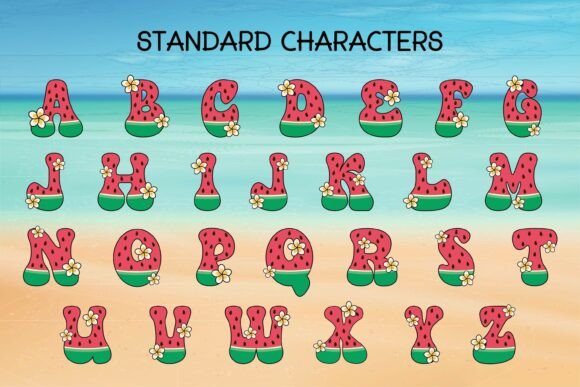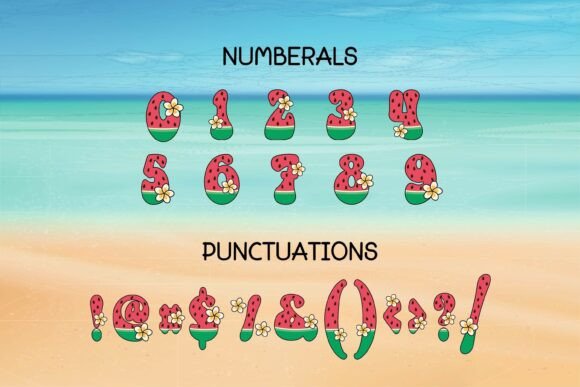
Adding a Taste of Summer to Your Designs
Who hasn’t felt the urge to escape to a tropical paradise on a hot summer day? As you scroll through your social media feeds, you stumble upon a colorful post that instantly transports you to a Hawaiian beach. The vibrant hues and playful typography make you smile, and you can’t help but wonder how you can create a similar effect in your designs.
Introducing the Aloha Melon Font, a charming display font that captures the essence of a refreshing summer day. This adorable font is inspired by juicy watermelon, beach vibes, and Hawaiian summer flowers, making it perfect for creating fun and cheerful designs. With its bright watermelon textures, cute floral decorations, and bold rounded letters, the Aloha Melon Font is a valuable addition to any designer’s toolkit.
Aloha Melon Font Key Features
- Font Family: Aloha Melon
- Unique Characteristics: A fun, playful, and colorful font with a tropical theme, featuring a mix of rounded and pointed shapes
Aloha Melon Font Review
I recently had the chance to work with the Aloha Melon Font, and I have to say it’s a fun and quirky addition to any design project. ✨ The font’s playful, handwritten feel is perfect for creating a relaxed and friendly atmosphere. It’s great for use in branding, advertising, and even social media graphics.
The Aloha Melon Font has a lot of potential, and I appreciate the designer’s attention to detail. The font includes a range of glyphs, including accented characters, punctuation, and even a few fun symbols. ✨ The font also comes in a few different styles, including a bold and a regular weight, which can be useful for creating visual interest.
- Playful, handwritten feel
- Perfect for creating a relaxed and friendly atmosphere
- Range of glyphs, including accented characters and punctuation
- Available in different styles, including bold and regular weight
- May not be suitable for formal or professional projects
- Some letters may not be perfectly legible at smaller font sizes
- May require additional design elements to create a cohesive look
Overall, I think the Aloha Melon Font is a great choice for designers looking to add some personality to their projects. While it may have a few limitations, the font’s unique feel and range of glyphs make it a great addition to any design arsenal.
Getting the Most Out of Aloha Melon Font
To get the most out of Aloha Melon Font, try experimenting with different font sizes, colors, and combinations. Use it for headings, titles, and other prominent text elements to add a touch of playfulness and whimsy to your designs.
Aloha Melon Font is ideal for:
– Food and drink branding
– Summer-themed designs and products
– Children’s products and educational materials